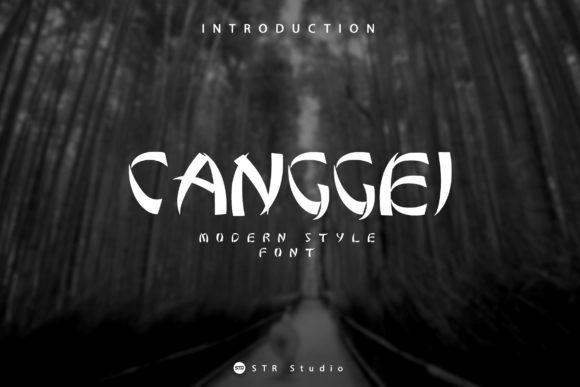
Immerse yourself in the captivating world of Canggei Font, a masterpiece from the renowned STR Graphs foundry. This display font embodies elegance and modernity, promising to transform your creations into visually stunning masterpieces.
With its graceful curves and sharp angles, Canggei Font exudes a timeless sophistication that will elevate any project. Whether you're crafting wedding invitations, designing social media graphics, or creating eye-catching logos, Canggei Font will leave an unforgettable impression.
Indulge in the limitless possibilities offered by Canggei Font. Its versatility knows no bounds, making it the perfect choice for a wide range of design endeavors. From whimsical invitations to bold posters, Canggei Font will add a touch of magic to your creations.
Unleash your imagination and let Canggei Font inspire you to new heights of creativity. Its enchanting characters will captivate your audience, leaving them mesmerized by the beauty of your designs.
Embrace the allure of Canggei Font and elevate your designs to new levels of sophistication. Let its timeless elegance enhance your creations and leave a lasting impression on the world.